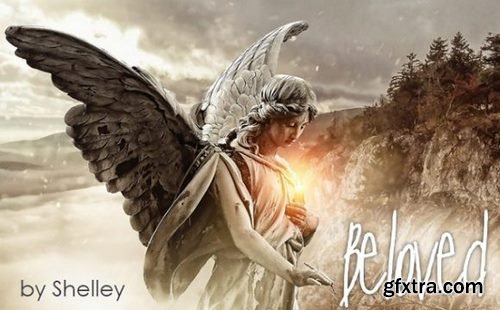
Beloved Font
Beloved is a romantic, gothic and bold handwritten font with a dark twist. Get inspired by it and use it for any design project that requires a bold feel.